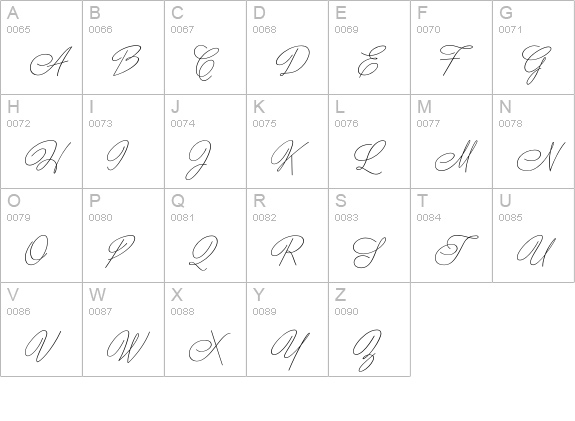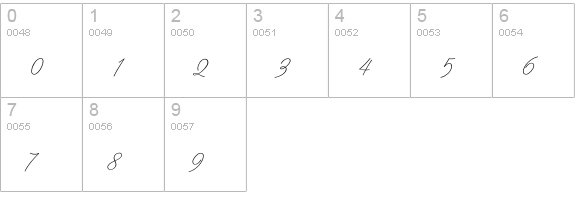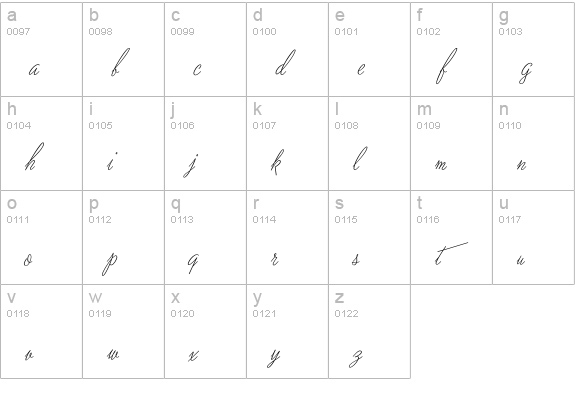
ScriptaPro Font Details
ScriptaPro font is a beautifully crafted typeface that exudes elegance and sophistication. With its delicate curves and graceful strokes, this font is perfect for adding a touch of class to any design project. Whether you are creating invitations, logos, or branding materials, ScriptaPro will elevate your work to the next level. What sets ScriptaPro font apart is not only its timeless design but also the fact that it is available for free download at FontsMarket.com. This means that you can access this stunning font without any cost, making it a valuable addition to your font collection. Don't miss out on the opportunity to enhance your designs with the beauty and versatility of ScriptaPro font. Download it today and see the difference it can make in your projects.